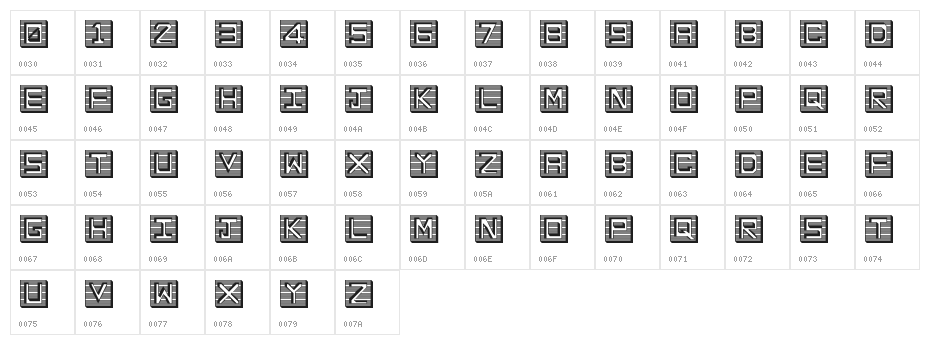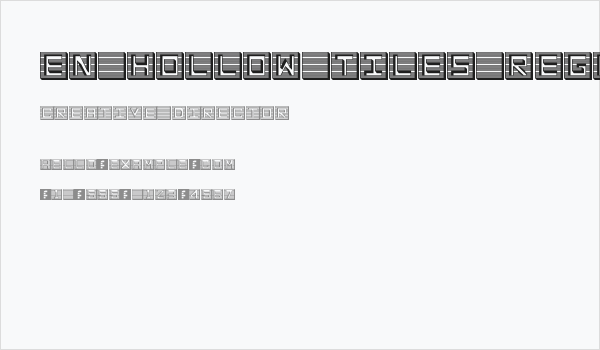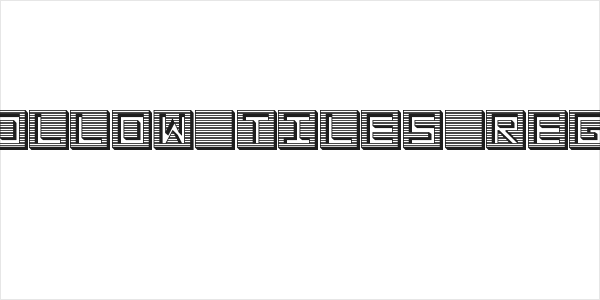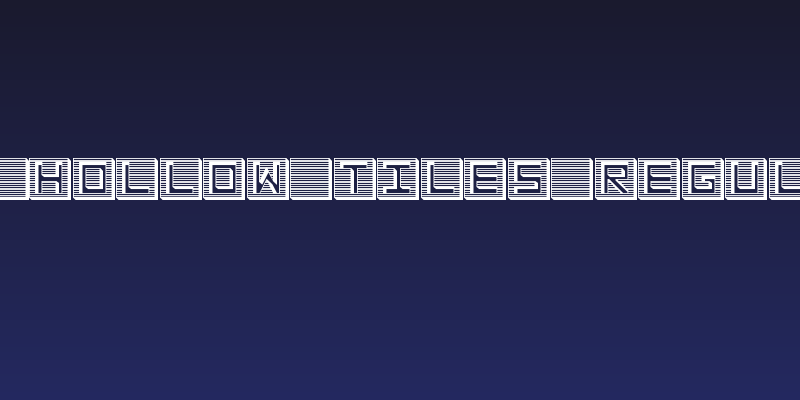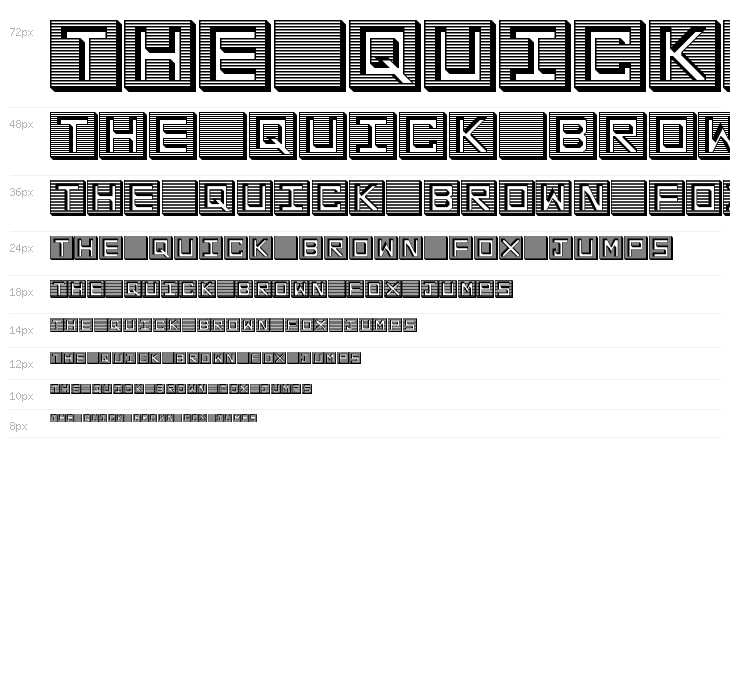
en hollow tiles Regular Font
en hollow tiles Regular Description
This font features a bold, decorative style with each character enclosed in a square tile. The letters are hollow with horizontal lines running through them, creating a unique striped effect. The design is geometric and structured, giving it a modern and industrial feel. The uppercase and lowercase letters share the same style, maintaining consistency throughout. Numbers and special characters are also included, following the same design principles. This font is eye-catching and ideal for projects that require a strong visual impact.
| Proposed Projects | Ideal for posters, signage, logos, and any design requiring a bold, industrial aesthetic. |